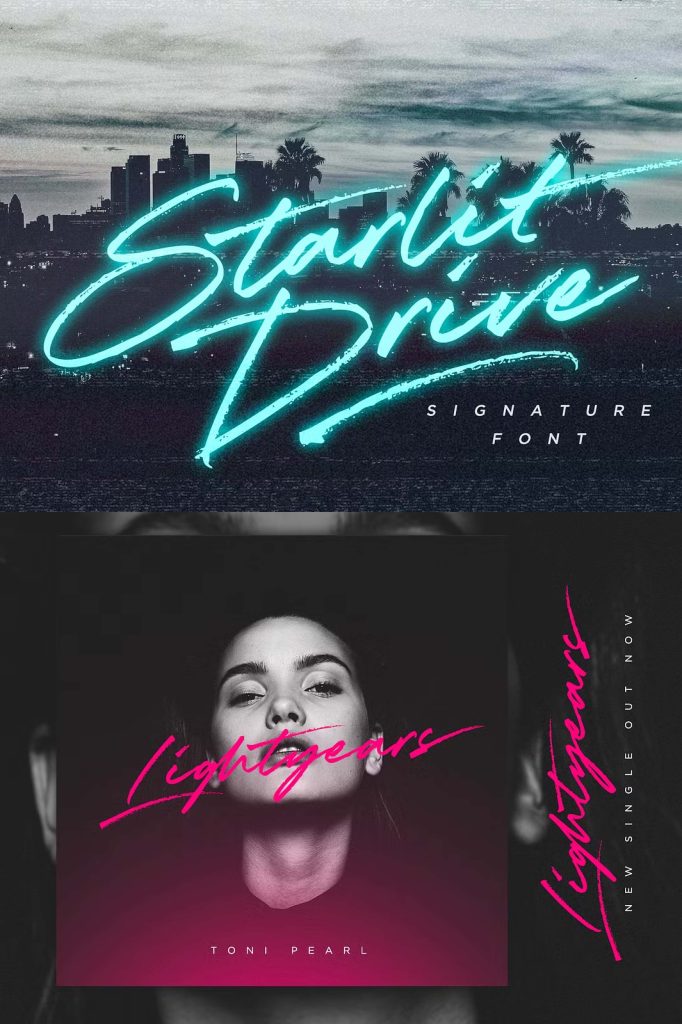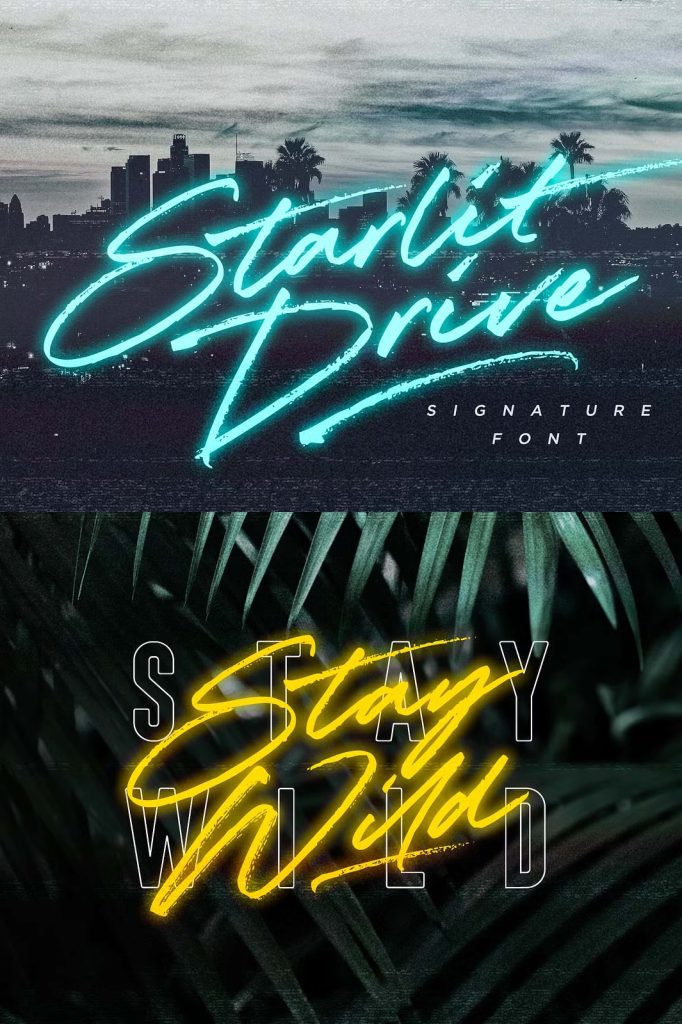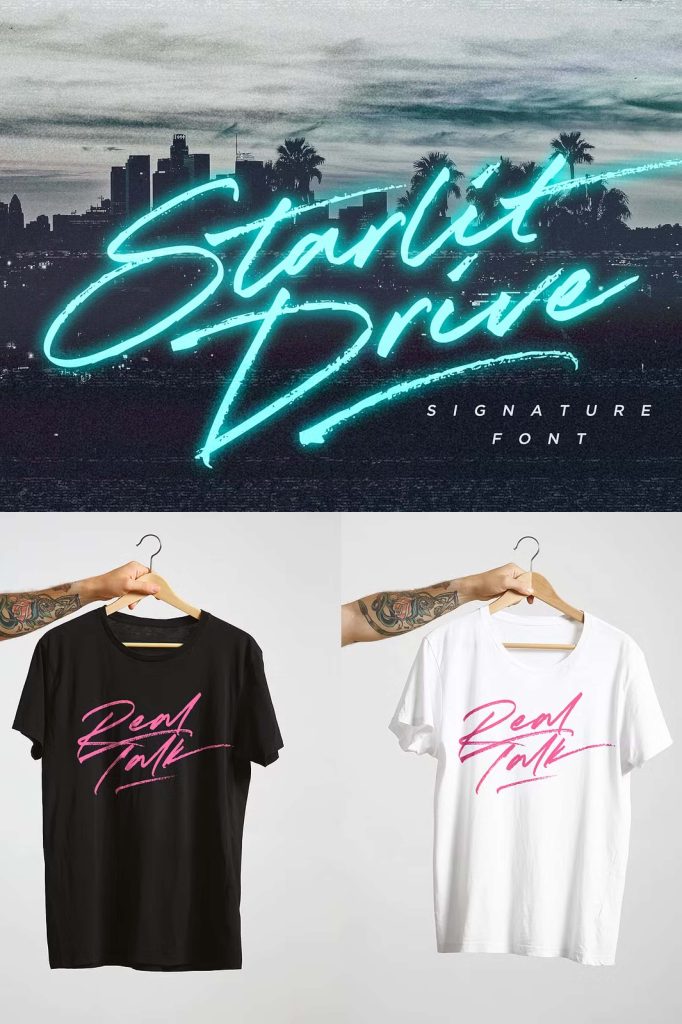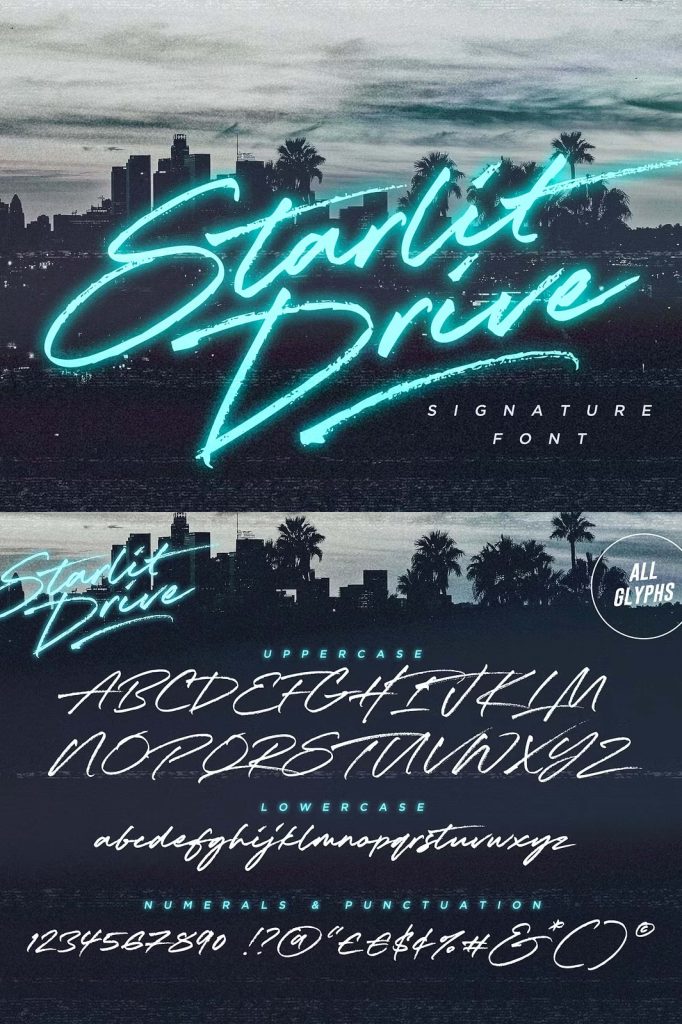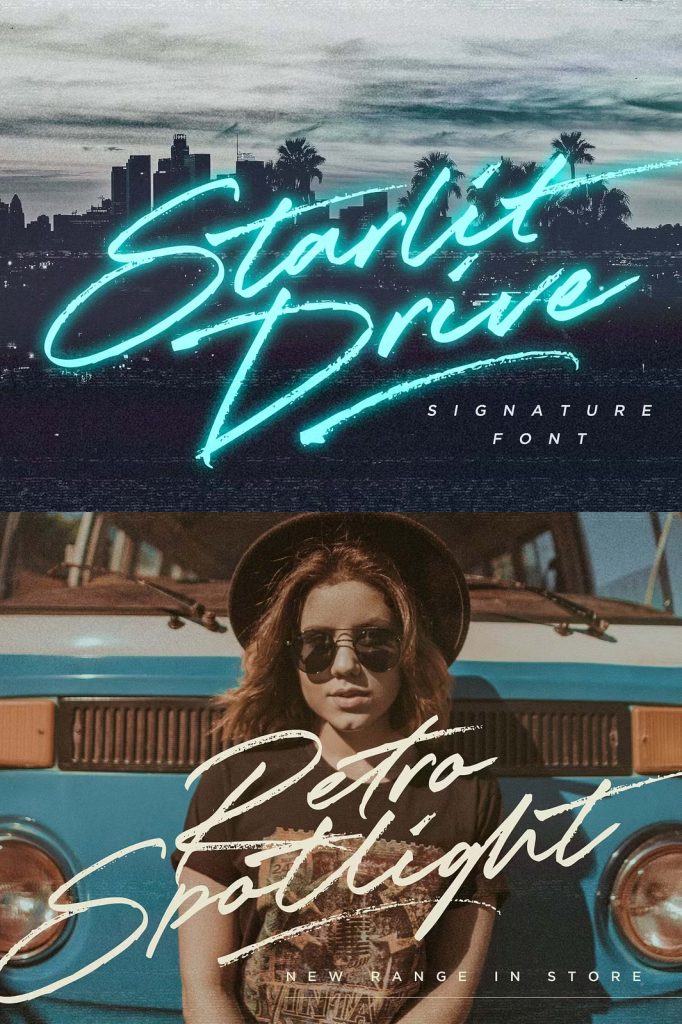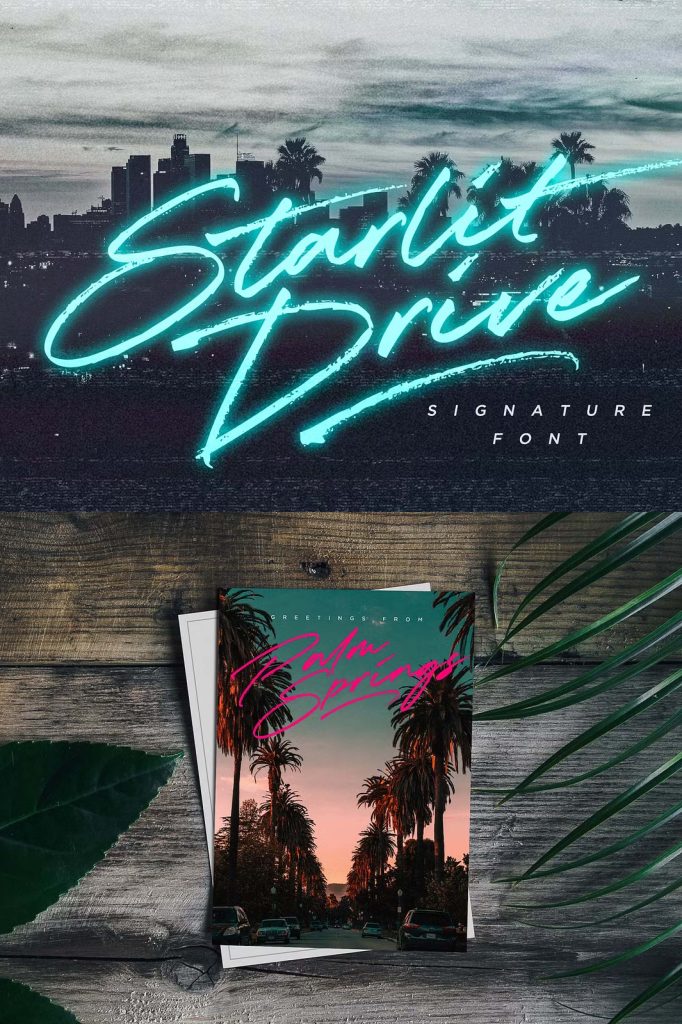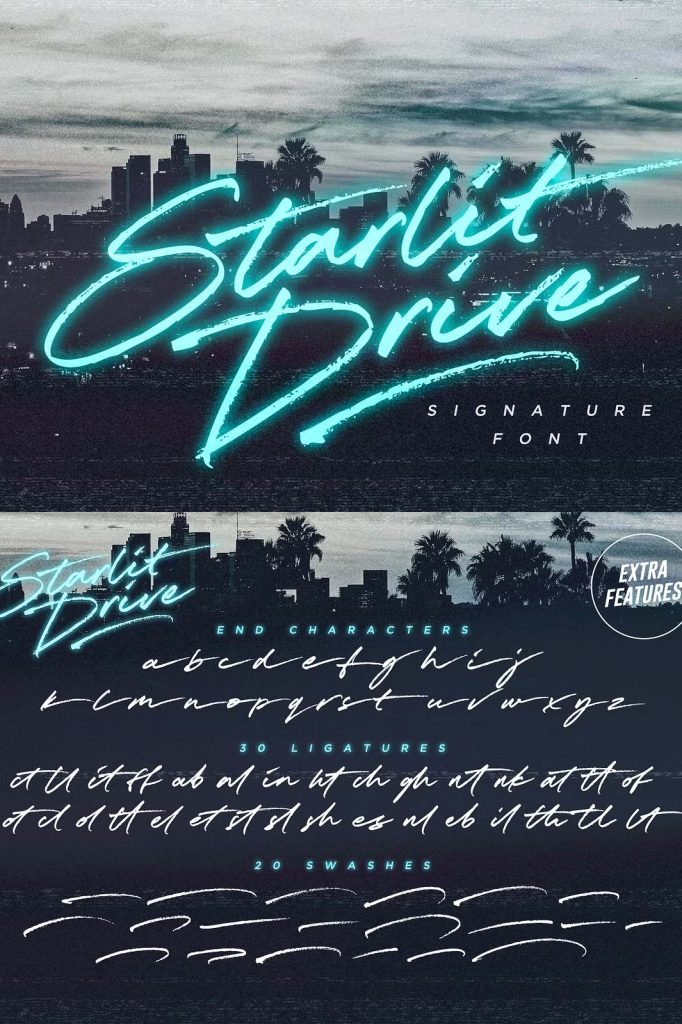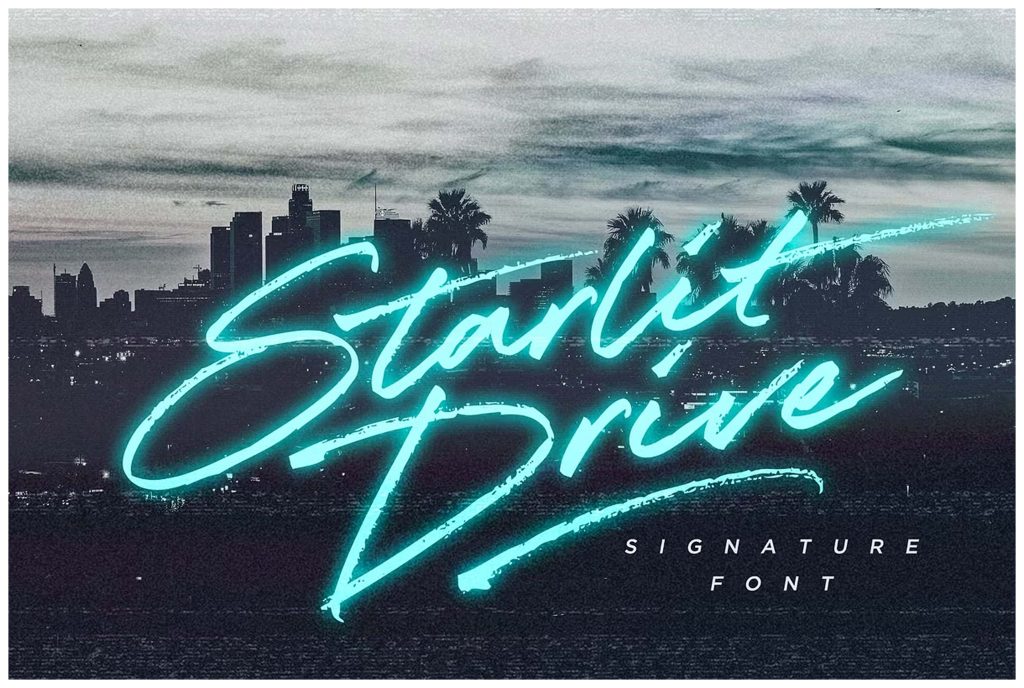
Starlit Drive Signature FontleastedApril 30, 2025Fonts Get your aviators on and hit the road with Starlit Drive – a fast paced, stylish signature font with a retro edge. Download